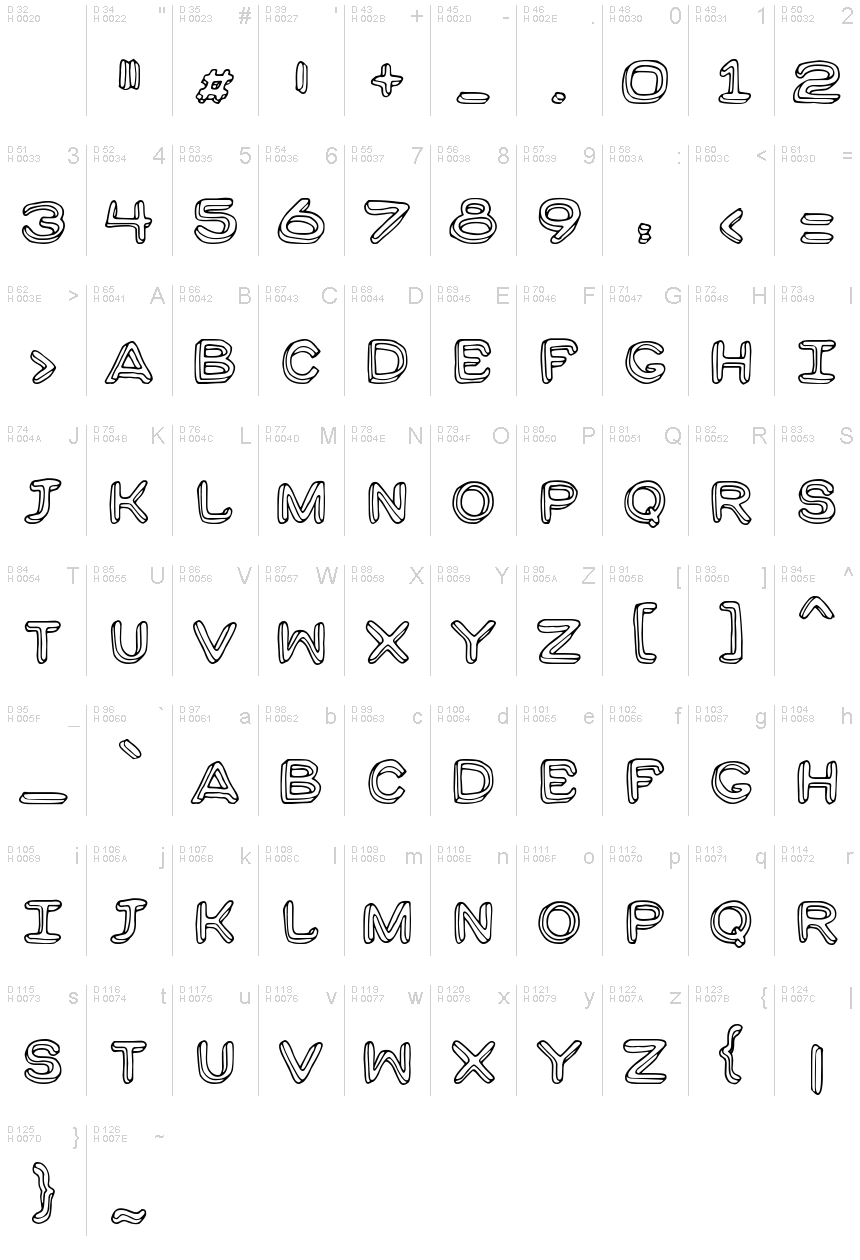
Moulden
Moulden is a captivating display font that exudes a playful, three-dimensional cartoon aesthetic. Characterized by its bold, expressive lines and expanded width, this font commands attention with its unique visual flair. The distinct, bubbly letterforms possess a whimsical charm, making Moulden an engaging choice for a variety of design applications, from vibrant branding and packaging to eye-catching typography in children's media and entertainment.
Its versatility allows it to shine in both digital and print environments, adding a touch of delightful personality to any project.